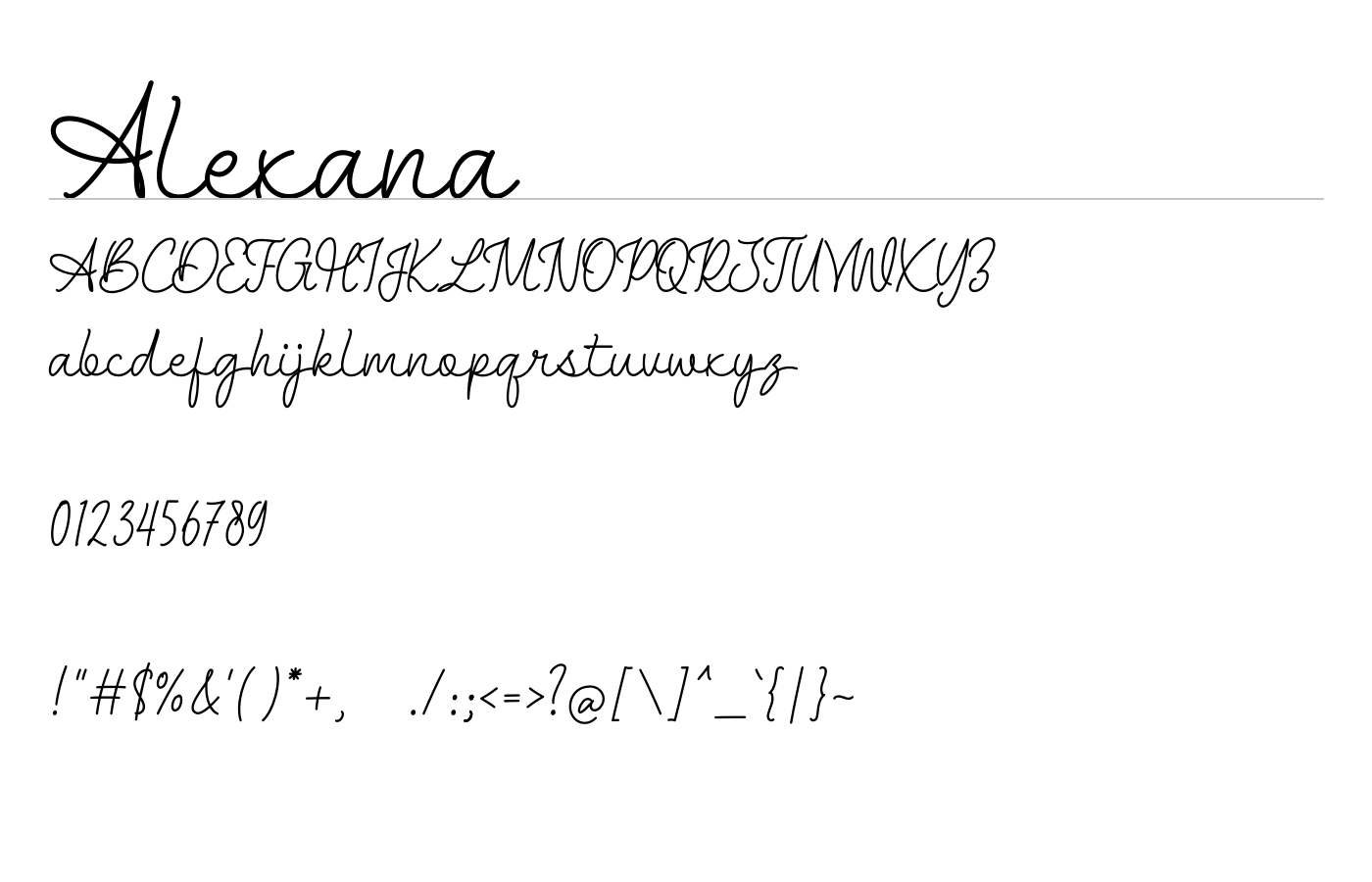
Alexana is an elegant, script-style font with a delicate, handwritten feel featuring slender strokes and a flowing, connected design. Its refined, airy letterforms make it ideal for sophisticated invitations, personal branding, and stylish headlines where a graceful, feminine touch is desired. This font works beautifully in contexts that call for a gentle, personal, yet polished aesthetic.
Alexana Font
About Alexana Font
| Font family | Alexana Font |
| Designer | Vampstudio |